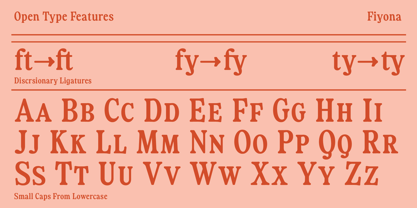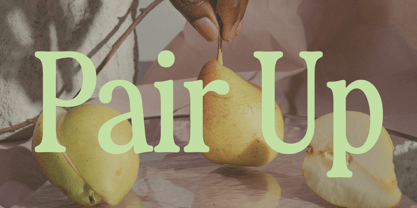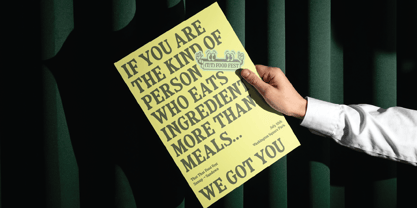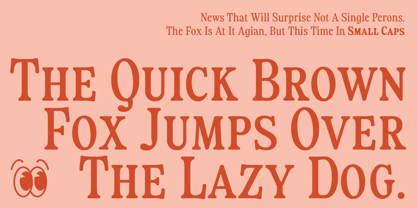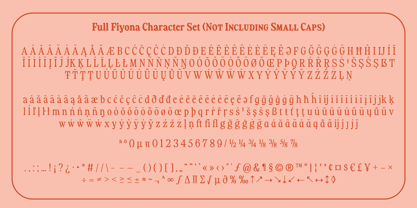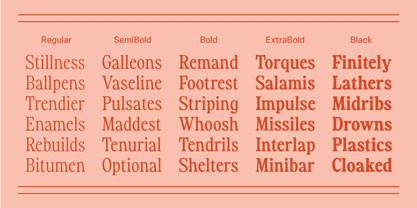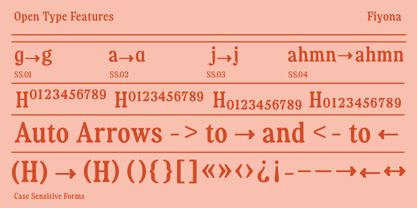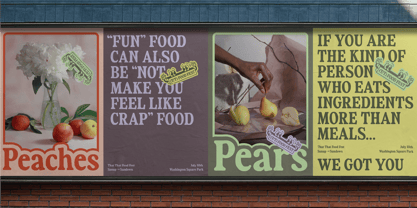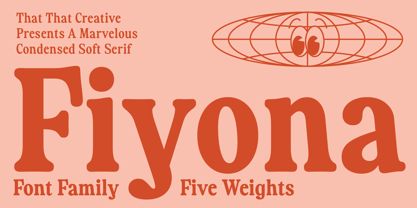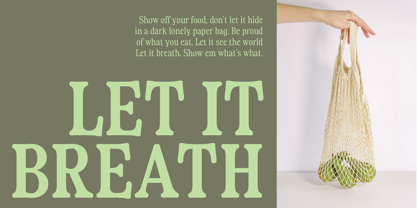
Fiyona
by That That Creative
The Fiyona Font Family was designed by Harbor Bickmore and published by That That Creative. Fiyona contains 5 styles and family package options.
The initial idea for this font was born from the description of the Pantone color of the year 2024 It’s all about closeness softness and connection. without sacrificing strength and structure. Fiyona is full of personality. It has a kicked out shoulder stem on characters like the “ahmn” Barbs on the “EFLT” Beaks on the “CGS” and of course the super fun revered descender “y” Some of the references behind Fiyona are Recoleta, The Timberland Logo, Lastik, and Howland font. I never liked fonts like Recoleta because I thought the kicked out shoulder and stem of the lowercase ahmn characters made the letters look wimpy. I Liked the idea of it, but I wanted more structure and a stronger straight line on that stem rather than a continuous curve. This balance between soft curves and strong structure became the theme of the typeface. Round outside corners with sharp acute angles, a more serious look at thin weights with a more playful look in the heavy weights, and of course subtle yet unique design choices like the reverse descender of the lowercase “y”